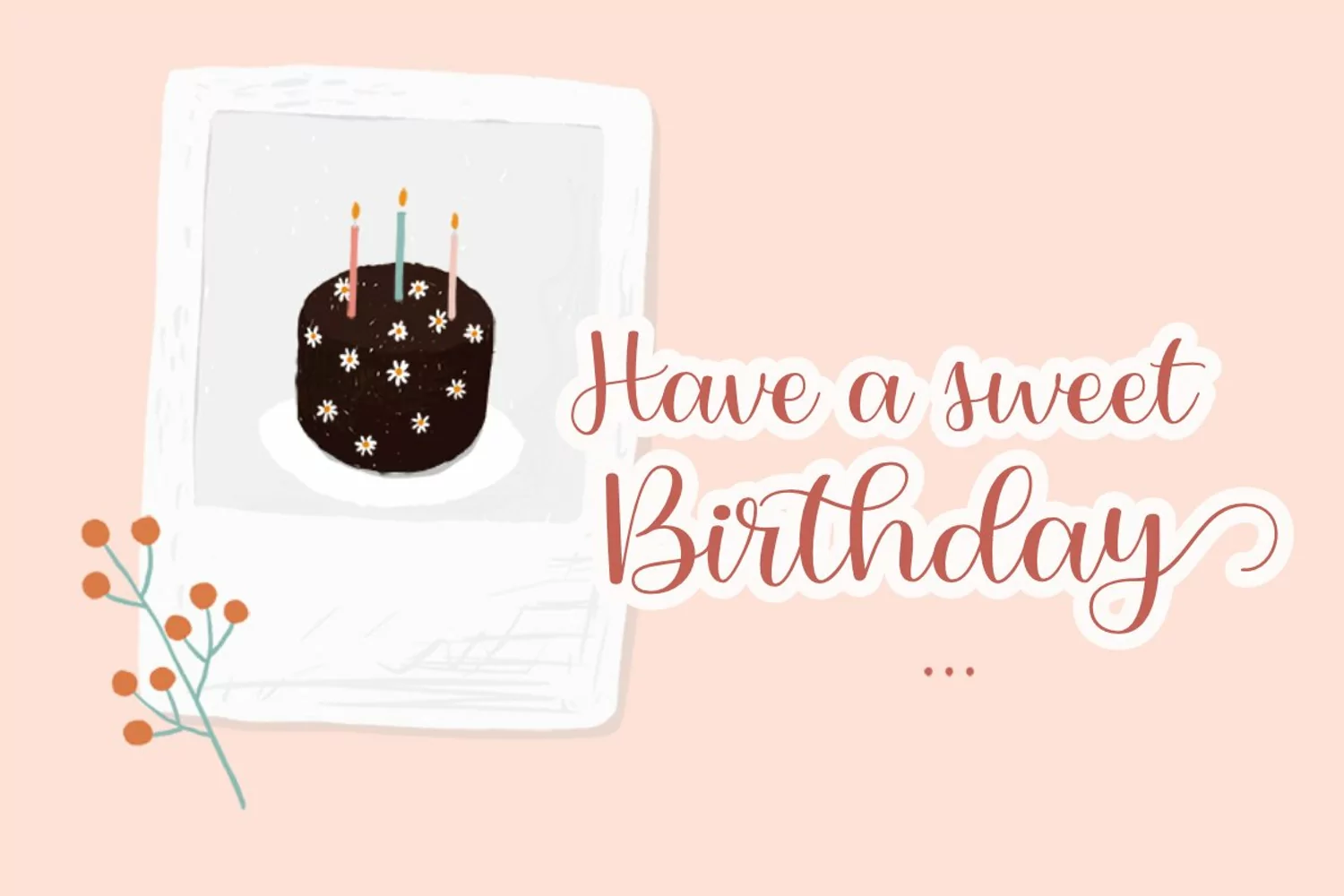
Introducing "Helo Crayon"
Helo Crayon Is a Script Font With Alternate Swash
This fonts is ideal for crafting, branding and decorate your any project. This fonts are perfect for wedding invitation or your blog. Also with their help, you can create a logo or beautiful frame for your home. Or just use for your business, book covers, stationery, marketing, magazines and more.